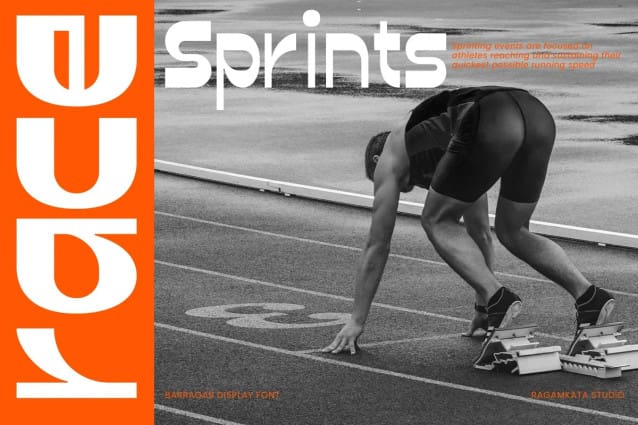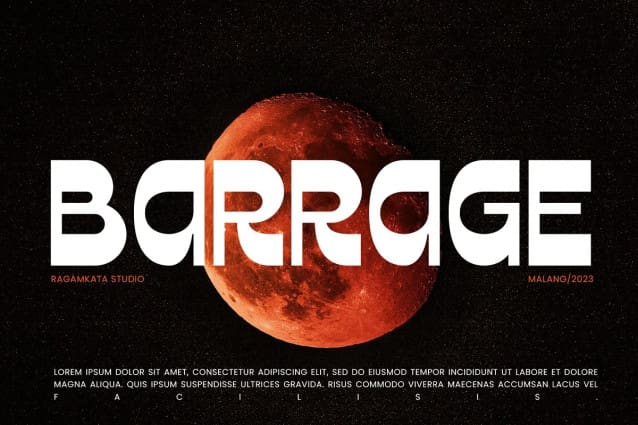
Barrage Display Font
Barrage Display Font presents a modern take on typeface design, merging cheerful boldness with artistic touches. Each letter is meticulously shaped, striking a balance between confidence and elegance. The box-like lines provide a sturdy foundation, while the subtle curves add a delightful creative flair.
With its lively boldness and delicate lines, Barrage conveys courage and a positive personality. This font suits projects aiming to stand out, such as eye-catching magazine titles, spirited advertisements, captivating posters, and other graphic designs seeking to grab attention. Yet, don’t worry; beneath its bold impression, there’s a touch of gentleness that conveys warmth in every message.
With Barrage, you’re not just getting an ordinary font – you’re acquiring a piece of typographic art that will elevate your projects. From impressive headings to impactful paragraphs, Barrage will be a loyal companion in expressing your ideas and stories with an unparalleled style.